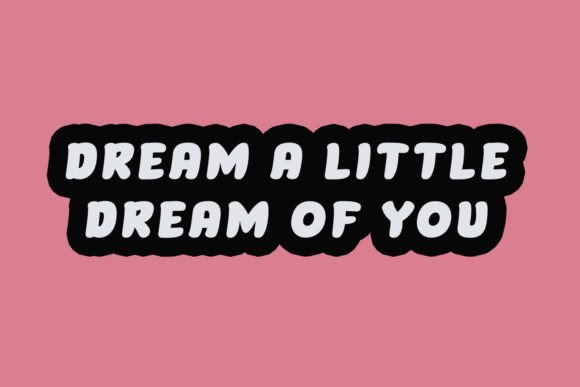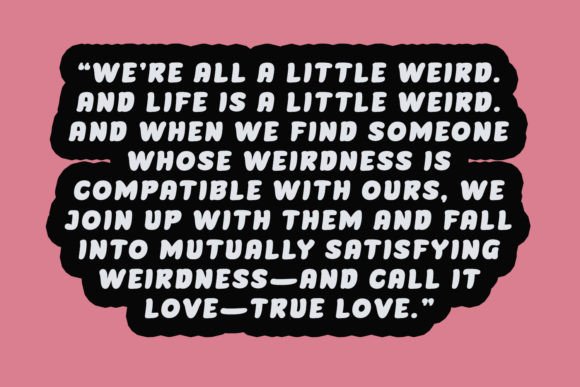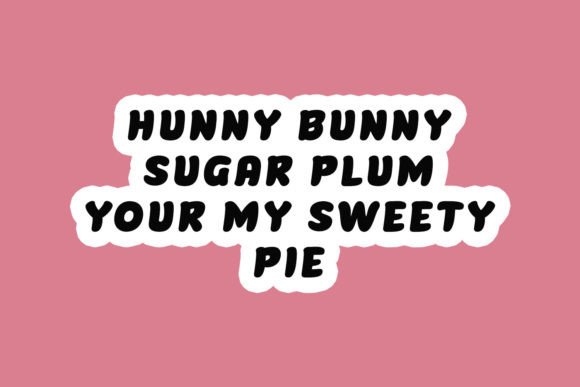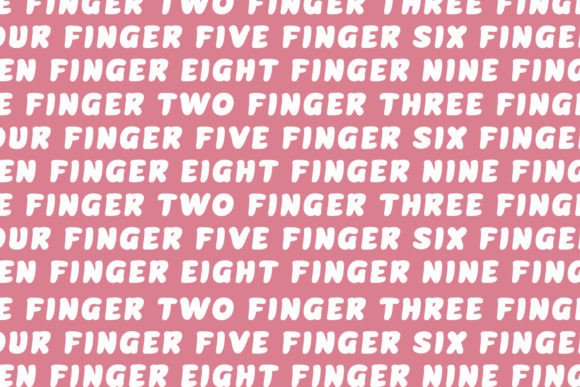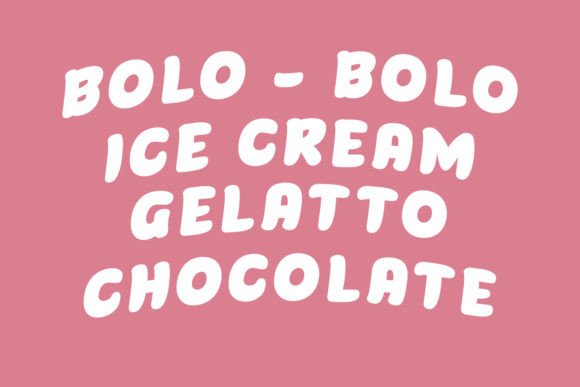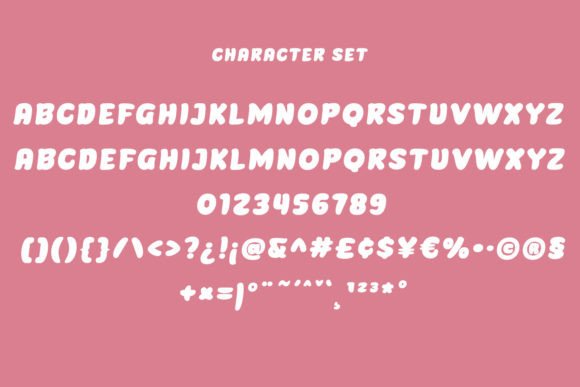
Introduction to Lokales Font
Lokales is a fat handwritten display font.
This original look will appeal to a wide range of crafty ideas, from letterheads and titles to stationery .